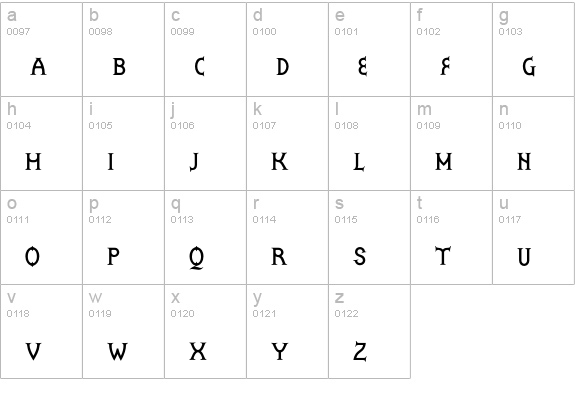
Zoroaster-SmallCaps Font Details
Zoroaster-SmallCaps is a beautifully crafted font that exudes elegance and sophistication. With its unique small caps style, this font is perfect for adding a touch of class to any design project. The clean lines and intricate details of Zoroaster-SmallCaps make it a versatile choice for a wide range of applications, from branding to editorial design. Best of all, Zoroaster-SmallCaps is available for free download at FontsMarket.com. This means you can easily access this stunning font without any cost, making it a valuable addition to your font collection. Whether you're working on a personal project or a client's design, Zoroaster-SmallCaps is sure to impress with its timeless appeal and professional quality. Download this font today and elevate your designs with a touch of sophistication.